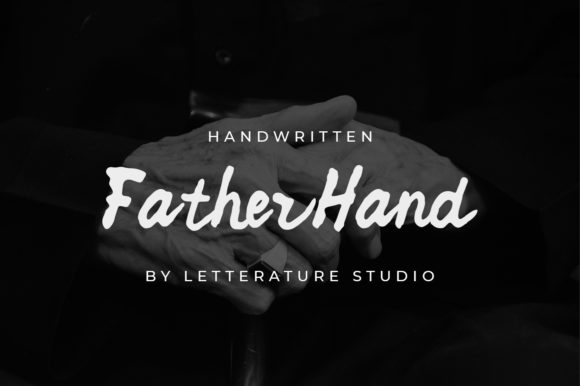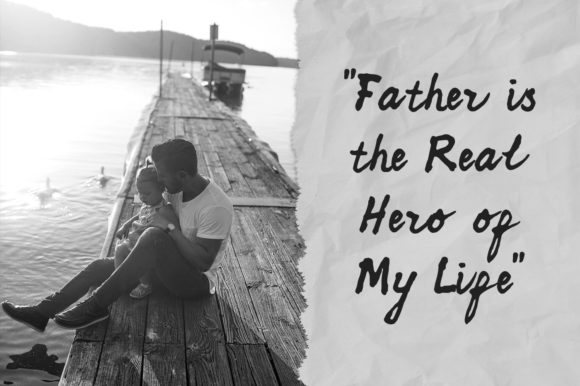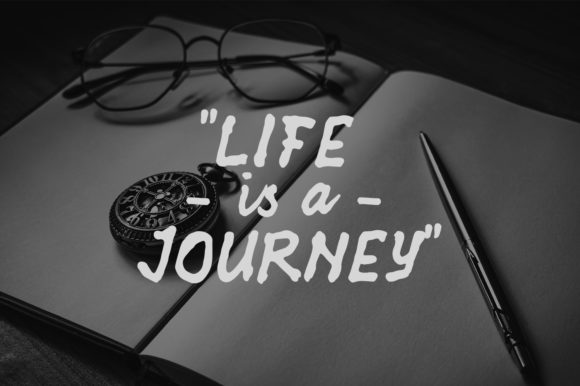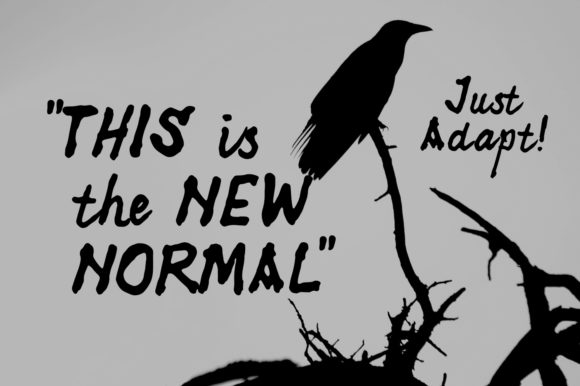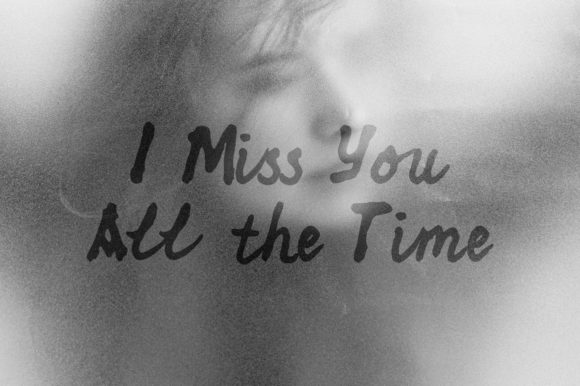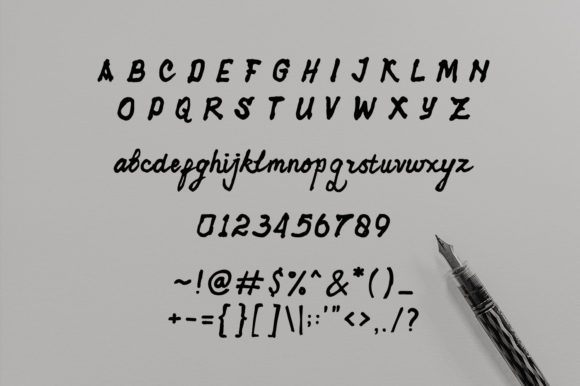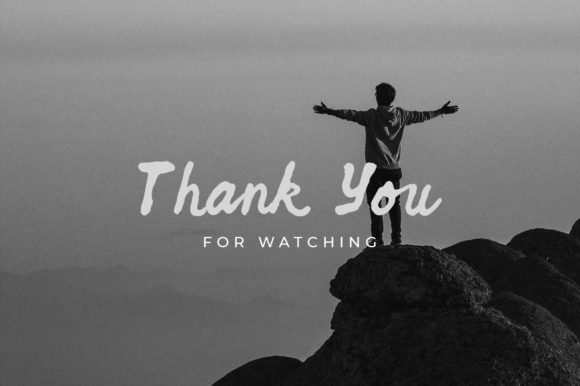
Fatherhand Font
About Fatherhand Font
Fatherhand feels equally charming and elegant. Whether it’s for web, print, moving images or anything else this handwritten font will look spectacular.